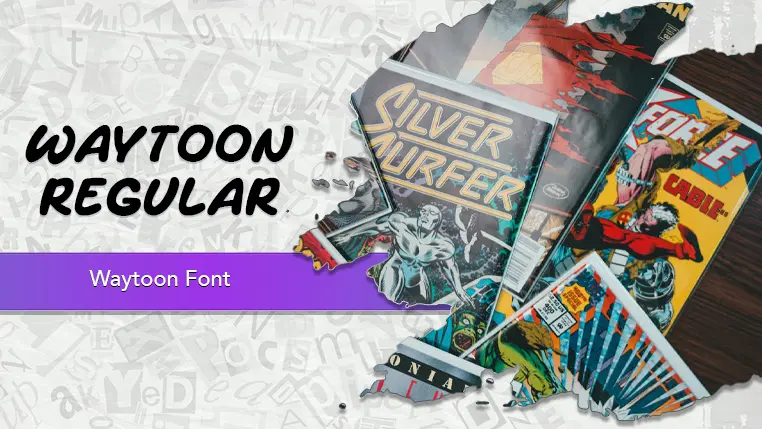
The Waytoon font family may be ideal for you if you enjoy working on an artistic design project. The lively, expressive look of this typeface, which was created by Khurasan, makes it ideal for Titles and headings for children's books, comics, or animated series. Educational materials for young learners (posters, worksheets). Branding and packaging for toys, games, or kid-friendly snacks. Party invitations and decorations for children's birthdays or fun events. Logos for businesses like ice cream shops, candy stores, play zones, or cafes with a quirky theme. Branding for independent creators, streamers, or content producers with a humorous or lighthearted approach. Greeting cards for informal occasions. and other light-hearted visual projects.
Regular are the one primary font styles of the Waytoon font family. You may build dynamic, visually appealing text layouts with the distinct flair that each style offers. With crisp, readable lines and a relaxed tone.